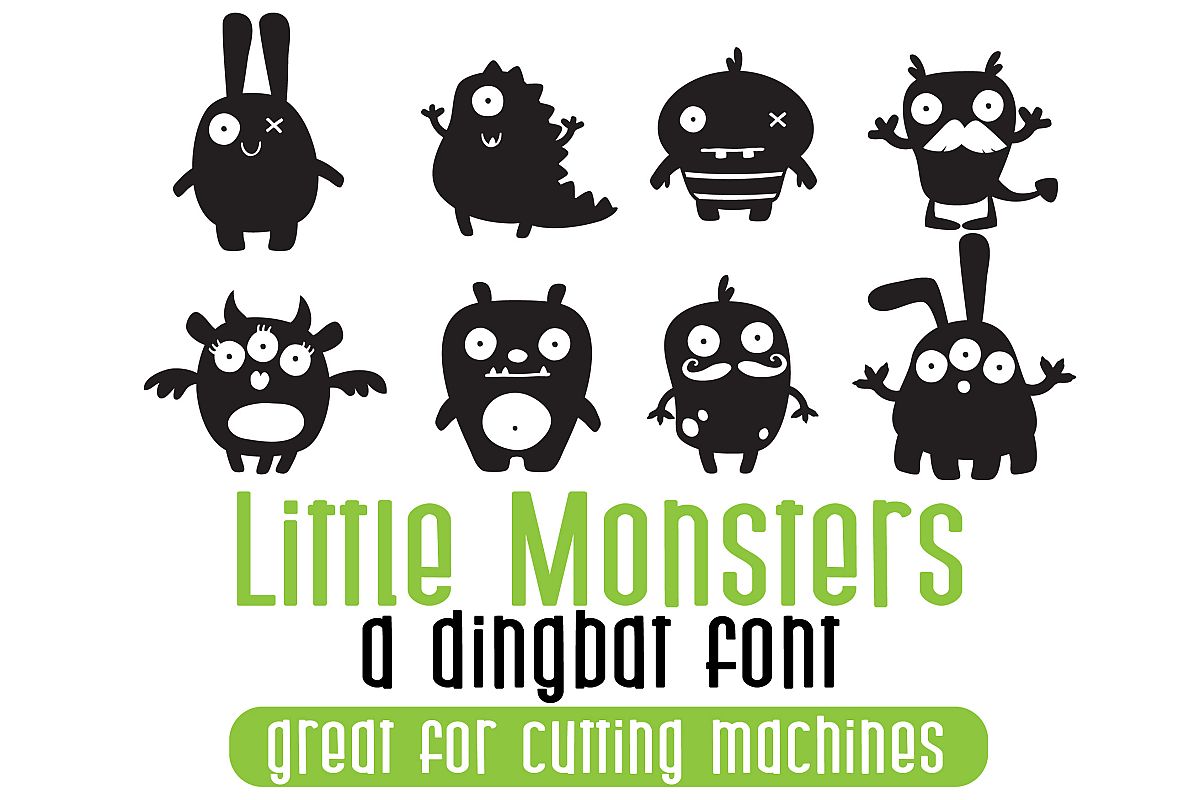
This dingbat font has 26 cute and whimsical monster images. These glyphs were made with care so they can be cut on a cutting machine.
Font includes the same characters in both the upper and lowercase.